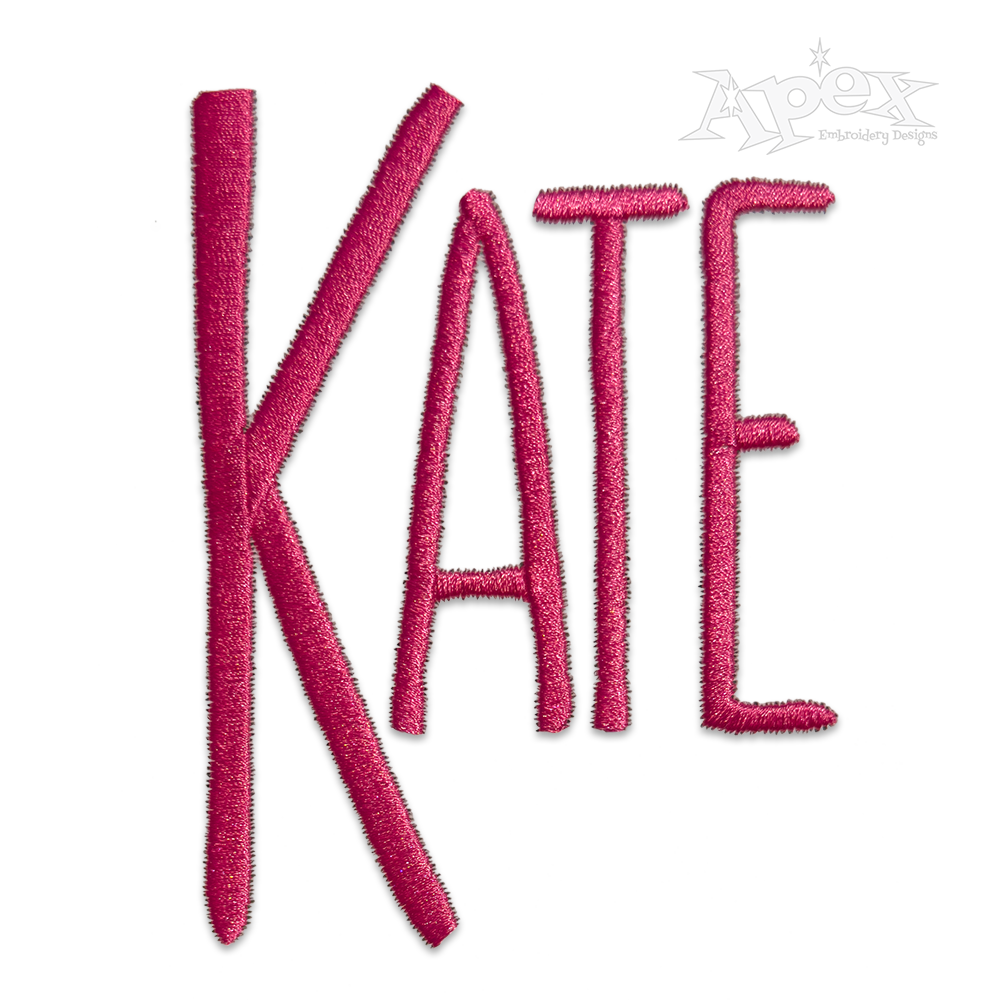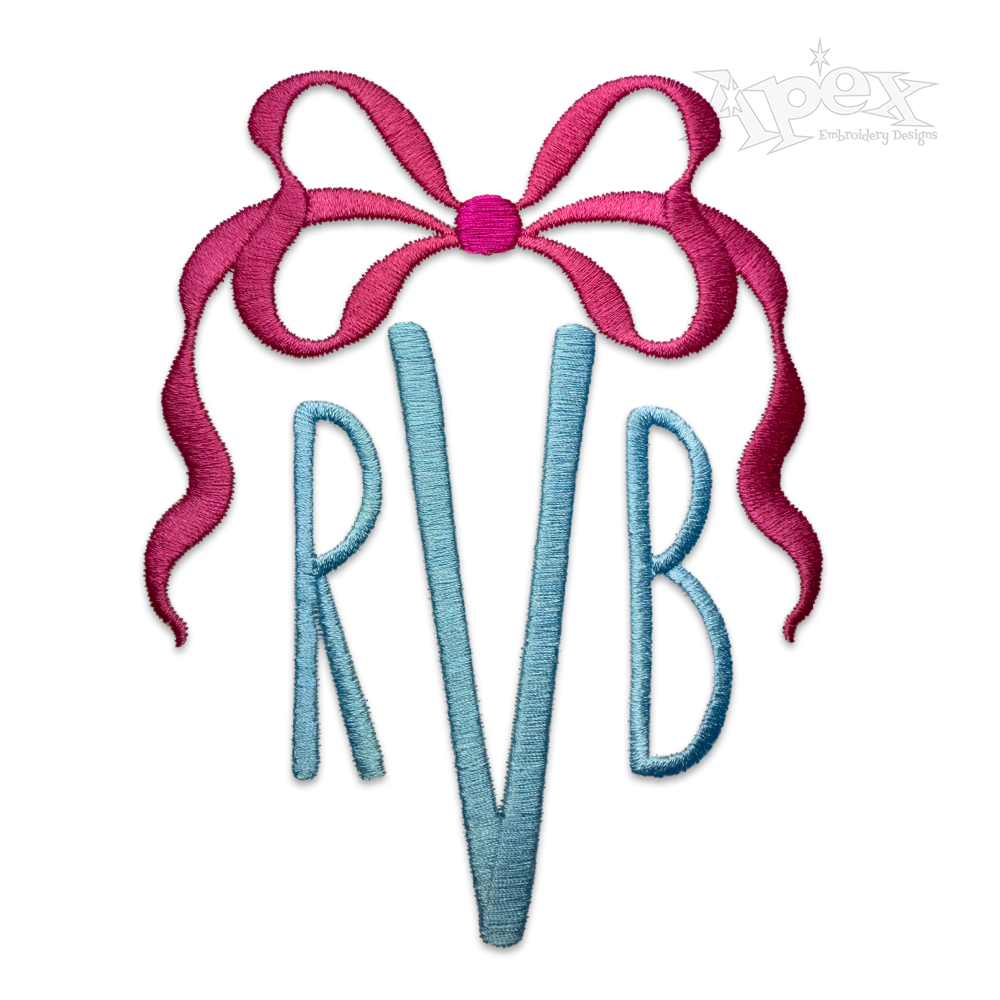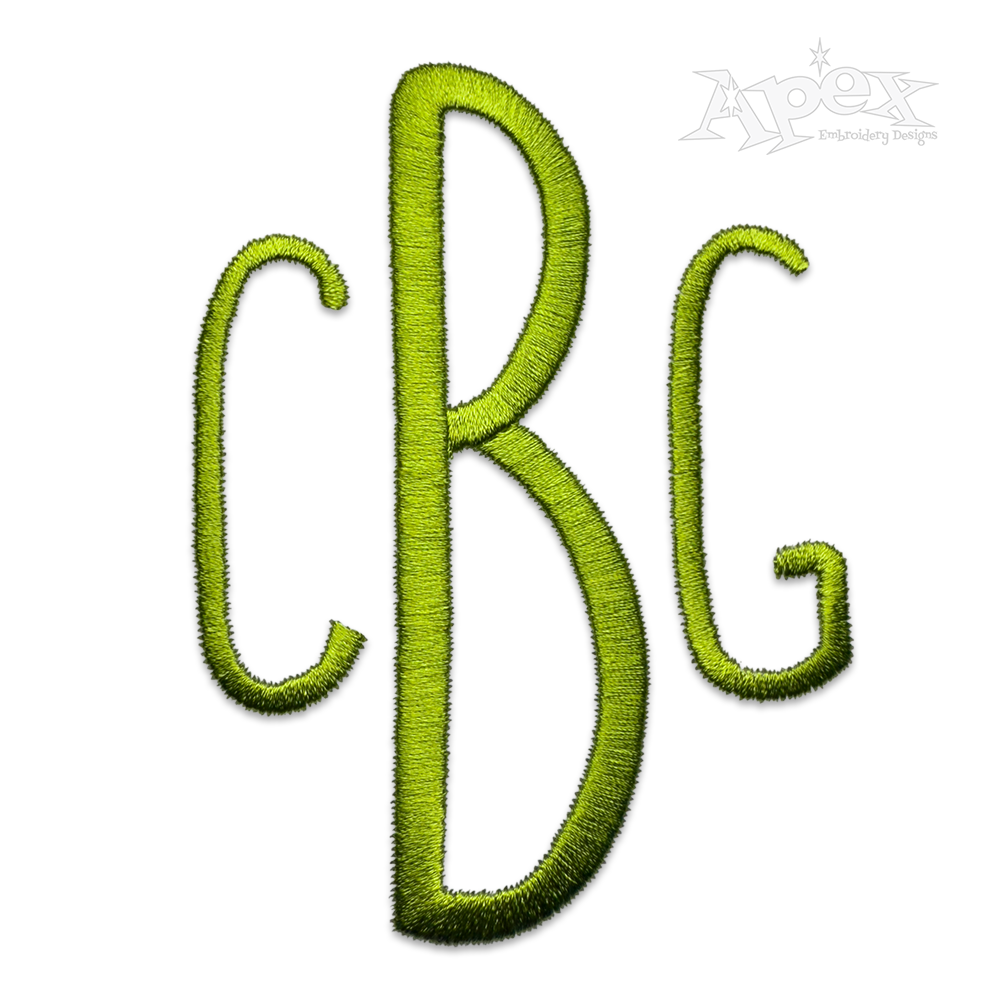
Orlando Embroidery Font
When digitizing the Orlando Embroidery Font, our studio drew inspiration from sun-drenched coastal estates and the crisp, tailored sophistication of classic resort living. It is a monogramming alphabet engineered for effortless elegance—bold enough to anchor fine interior textiles, yet balanced with gracious curves that allow thread to gleam with luminous depth. Designed to elevate everyday wovens into bespoke family heirlooms, Orlando turns every monogramming project into a celebration of timeless American craftsmanship.
The Orlando collection includes complete uppercase alphabets thoughtfully optimized across three versatile proportions for seamless scaling:
Orlando Embroidery Font Craft & Letterform Details
True embroidery elegance relies entirely on how stitch paths react with light and tension. In digitizing the Orlando alphabet, we constructed generous, undulating satin columns layered over specialized travel and foundational underlay stitching. This internal architecture prevents fabric sinking and eliminates outline puckering, ensuring that even on lofty terry cloth or textured pique, every stroke remains crisp and sculptural.
The letterforms boast gracefully weighted vertical stems paired with subtle, rounded terminals that soften traditional typographic geometry. Each curve transitions smoothly into its adjacent stroke with calibrated pull compensation, allowing your machine to run with a fluid, continuous rhythm. The result is a masterfully digitized alphabet that yields high-sheen satin luster, clean needle penetrations, and a luxurious hand-feel worthy of the finest heirloom traditions.